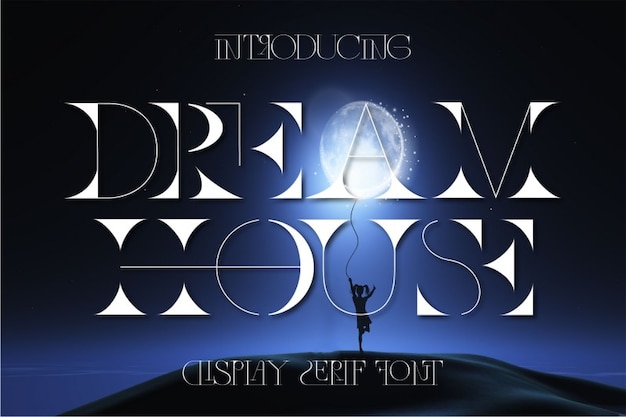
Dream House Font
"Dream House" is a stylish font with a perfect balance of thin strokes and solid fills. Its delicate, graceful lines contrast beautifully with bold, filled areas, creating a sense of modern elegance and sophistication. Ideal for branding, invitations, or creative projects, this font adds a dream-like quality with its sleek, contemporary design.